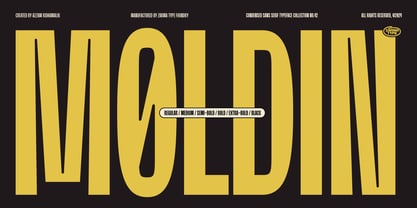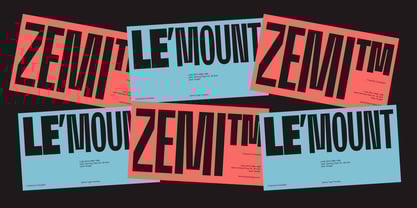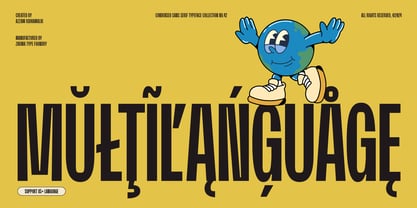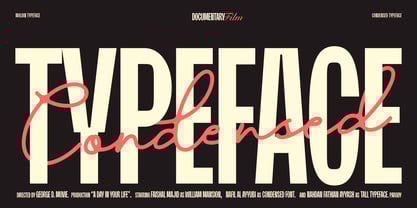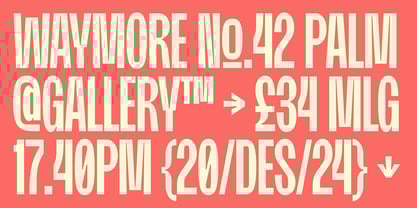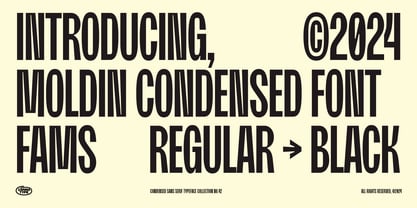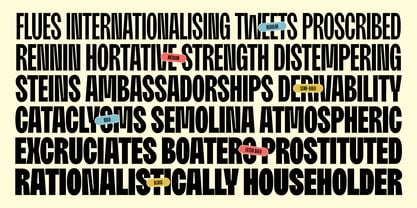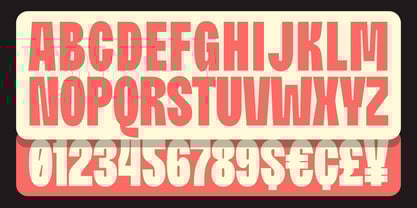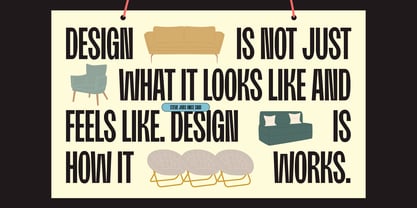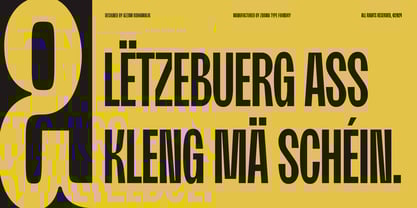
Moldin
by Azzam Ridhamalik
The Moldin Font Family was designed by Azzam Ridhamalik and published by Azzam Ridhamalik. Moldin contains 6 styles and family package options. More about this family
Moldin is a bold condensed sans serif font family designed to deliver maximum impact in display and headlines. Available in 6 weights from Regular to Black, Moldin's industrial-inspired geometry and contemporary aesthetics make it perfect for branding, posters, editorial designs, and digital media. Its clean letterforms and optimized kerning ensure excellent legibility, even in condensed forms.
With an extensive character set supporting multiple languages and professional OpenType features, Moldin is a versatile tool for global design needs. Ideal for branding, headlines, product packaging, and sports-themed projects, Moldin includes PUA-encoded characters, extended Latin support, added flexibility across print and digital platforms.